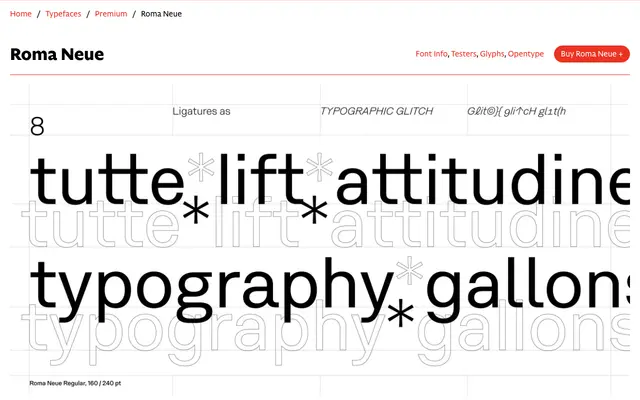
Roma Neue
Roma Neue specimen from CAST
A Swiss-tradition grotesque by Stefano Cremisini, spanning eight weights with slanted italics and a variable font that allows continuous control over slant angle.
Designed between 2021 and 2023, it sits squarely in the neo-grotesque lineage of Helvetica and Univers, offering clean, upright forms suited to exhibition design, corporate identity, packaging and wayfinding. The variable font adds a slant axis running from 0° to 16°, while OpenType features include alternate forms for a, g, l, t, G, J and R, old-style figures, tabular figures and a full set of fractions. Over 560 glyphs cover an extensive range of Latin-script languages.
A neutral, upright grotesque in the Swiss tradition, drawing on 19th-century jobbing types and 20th-century descendants such as Helvetica and Univers. Slanted rather than true italic styles confirm its neo-grotesque lineage.